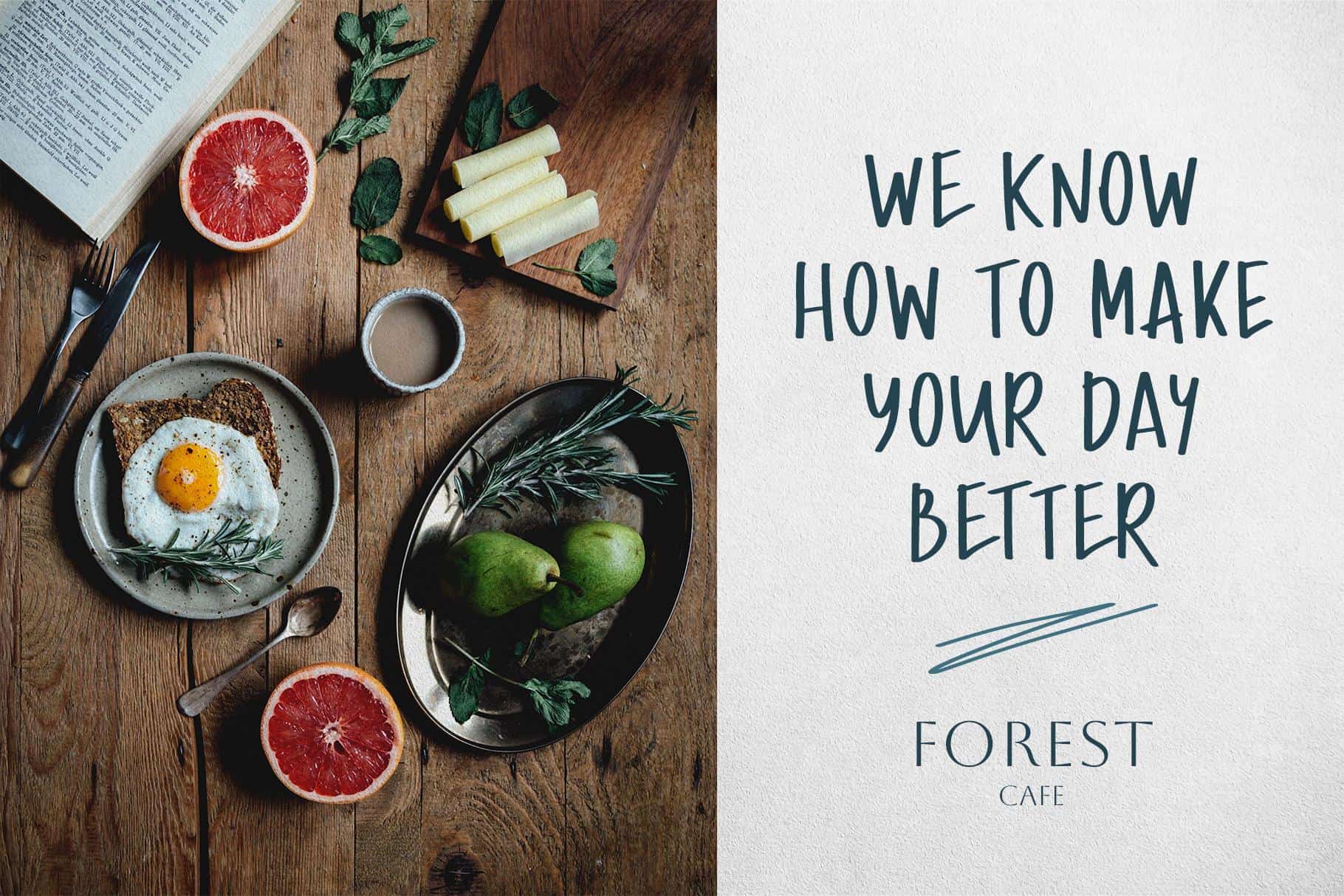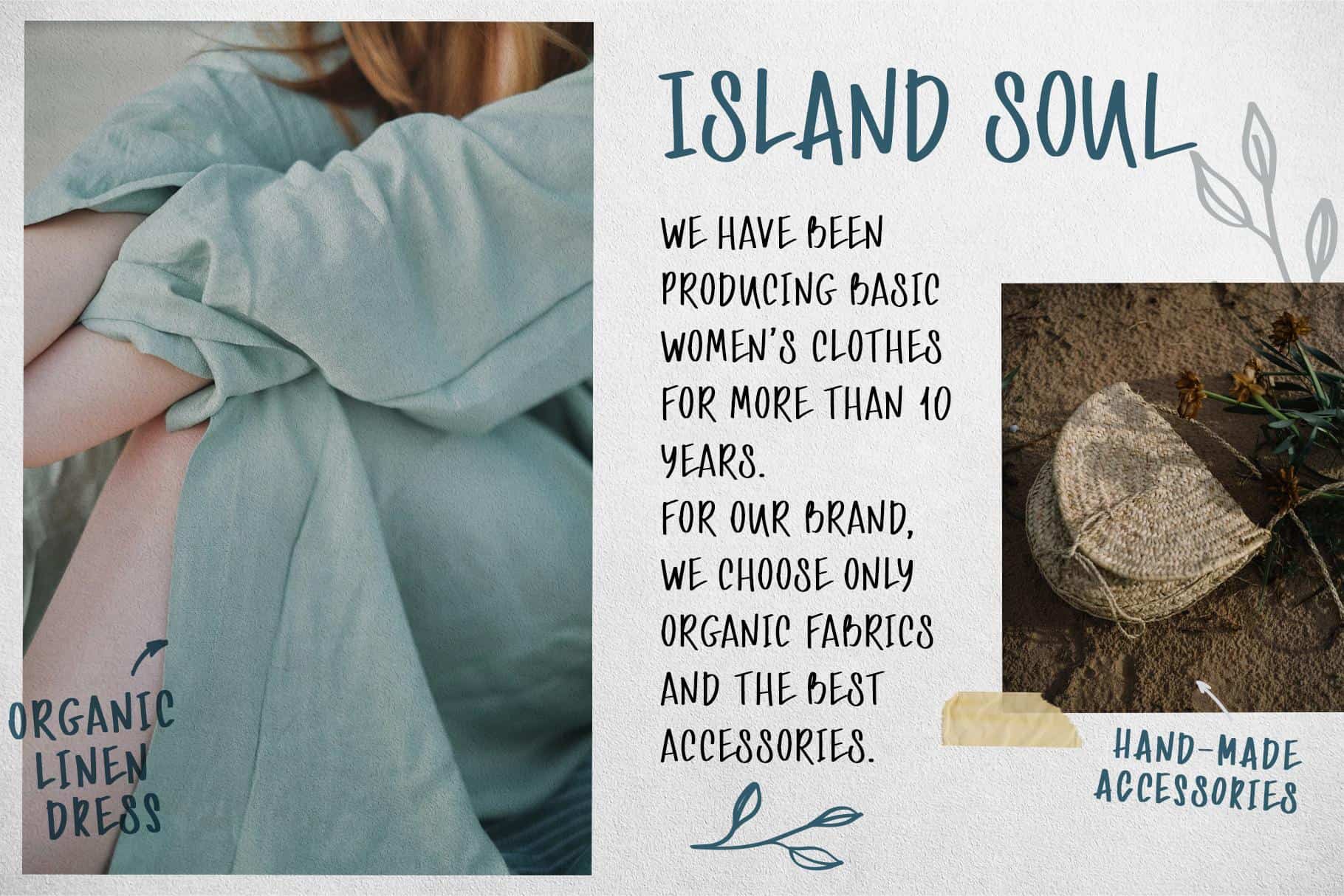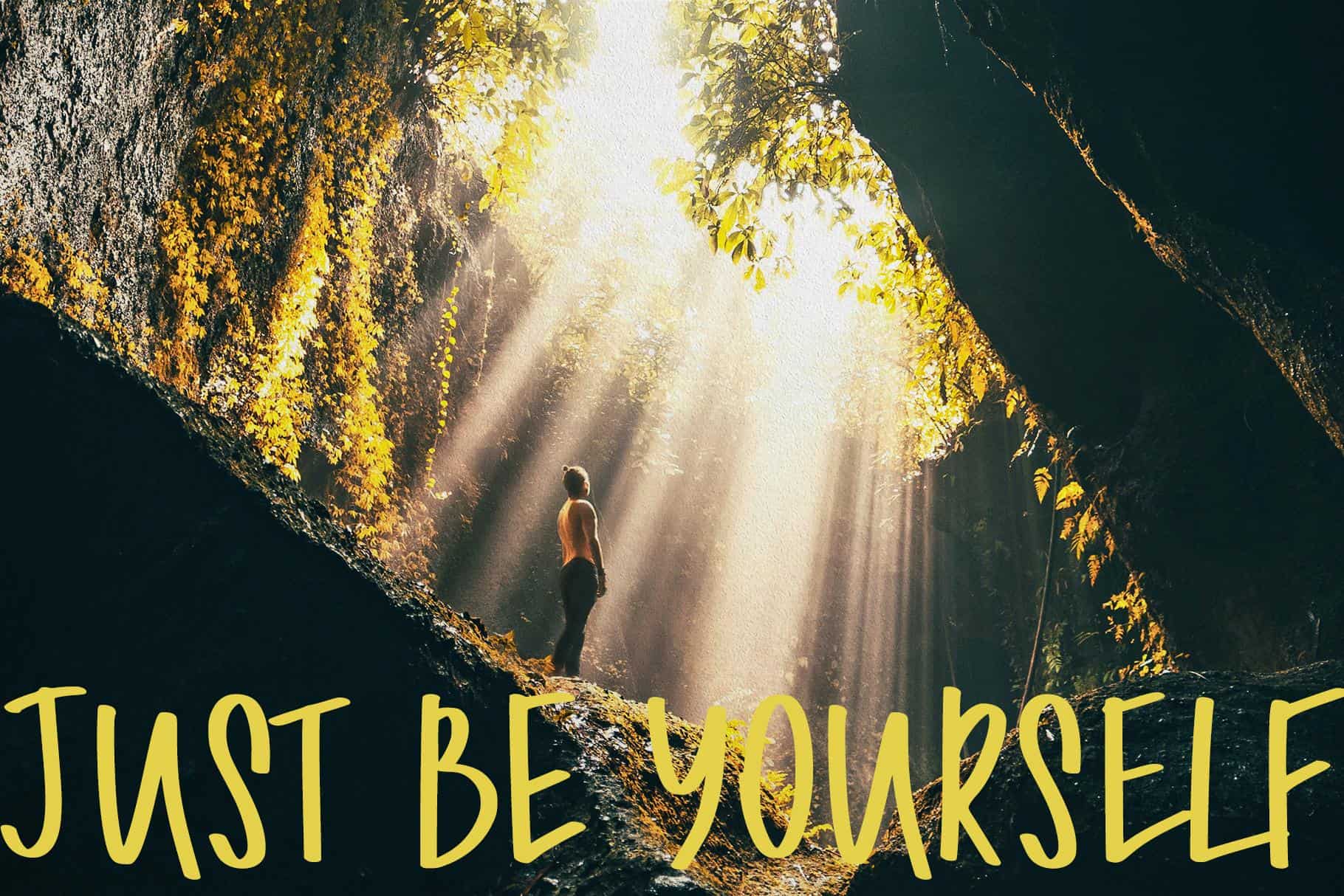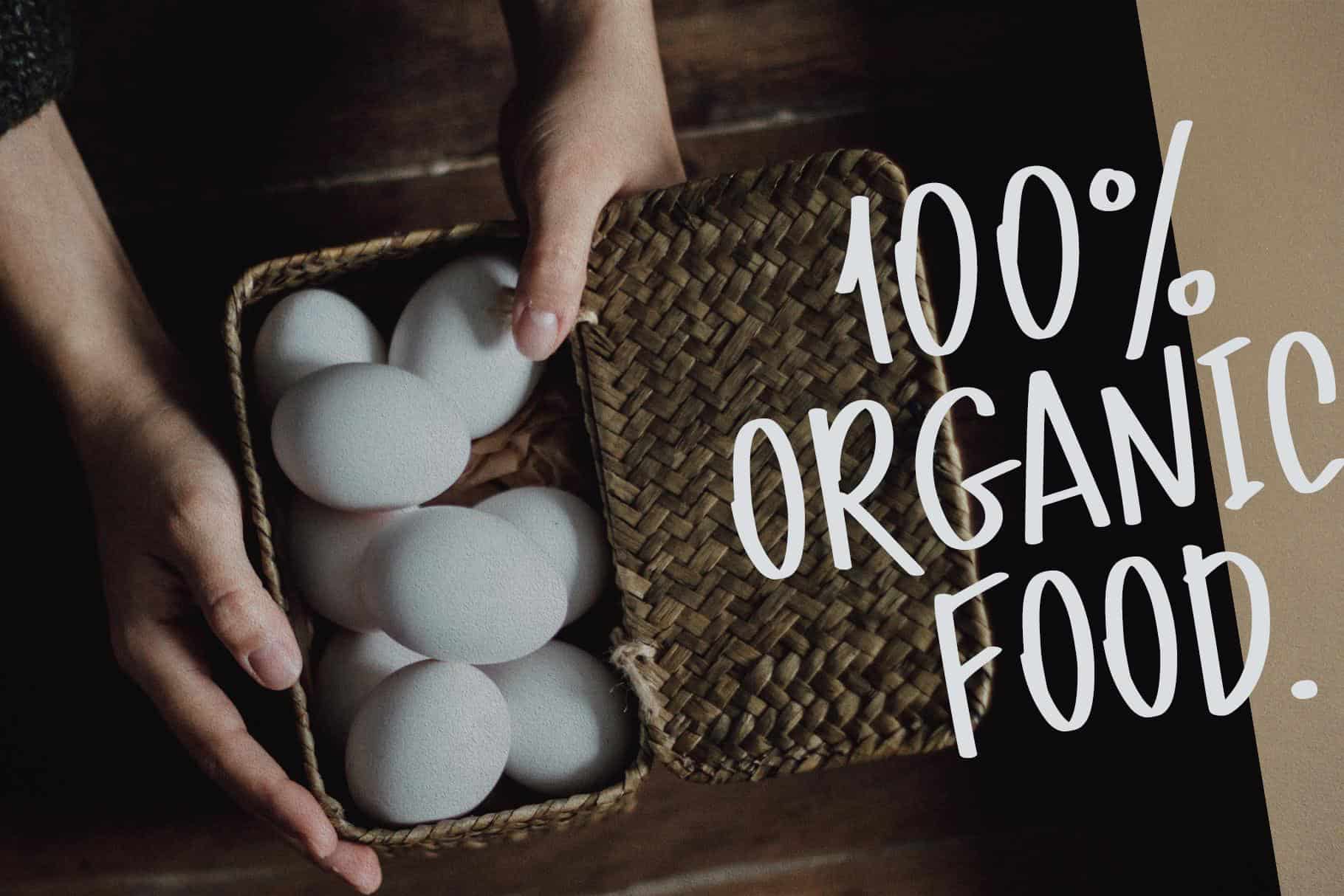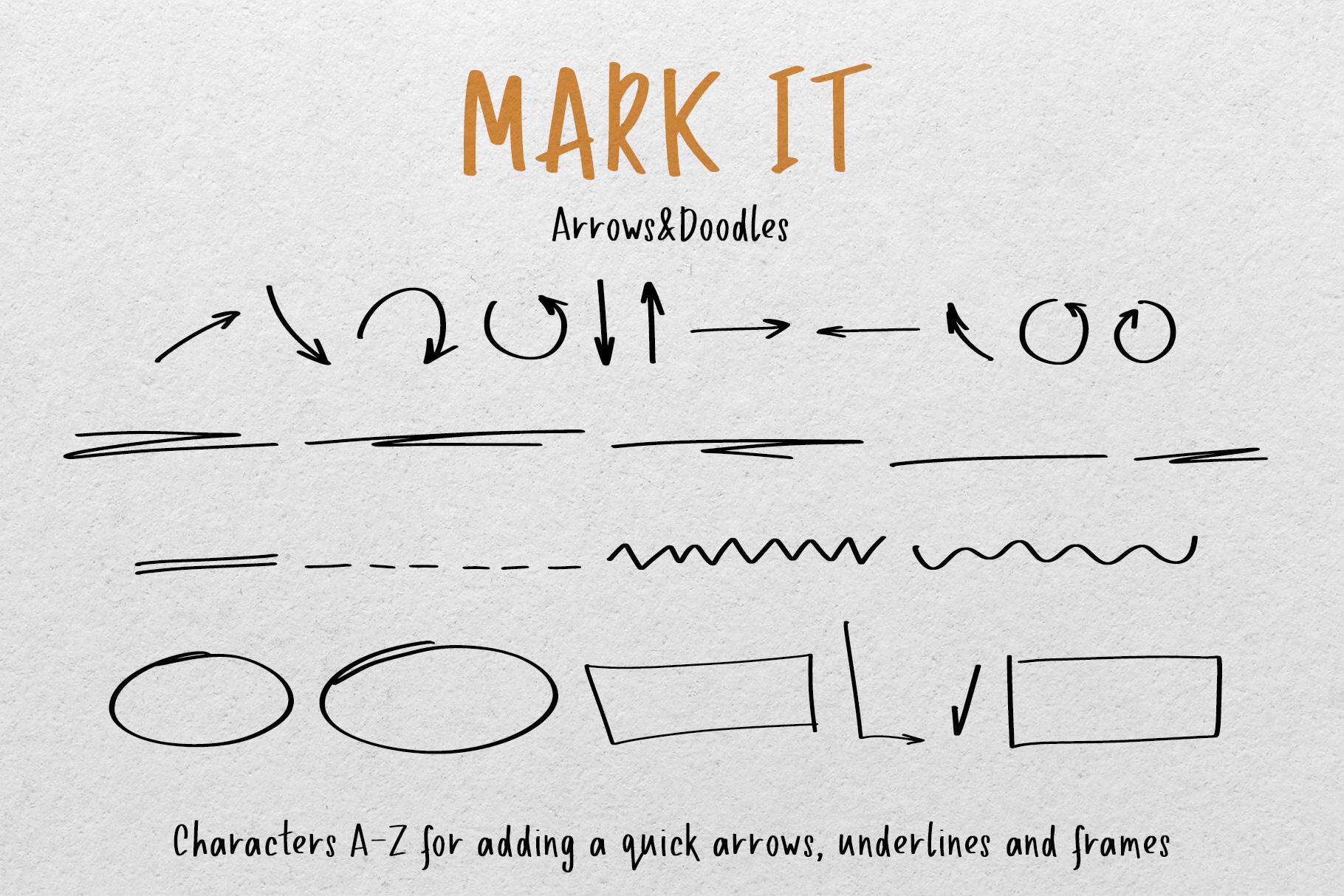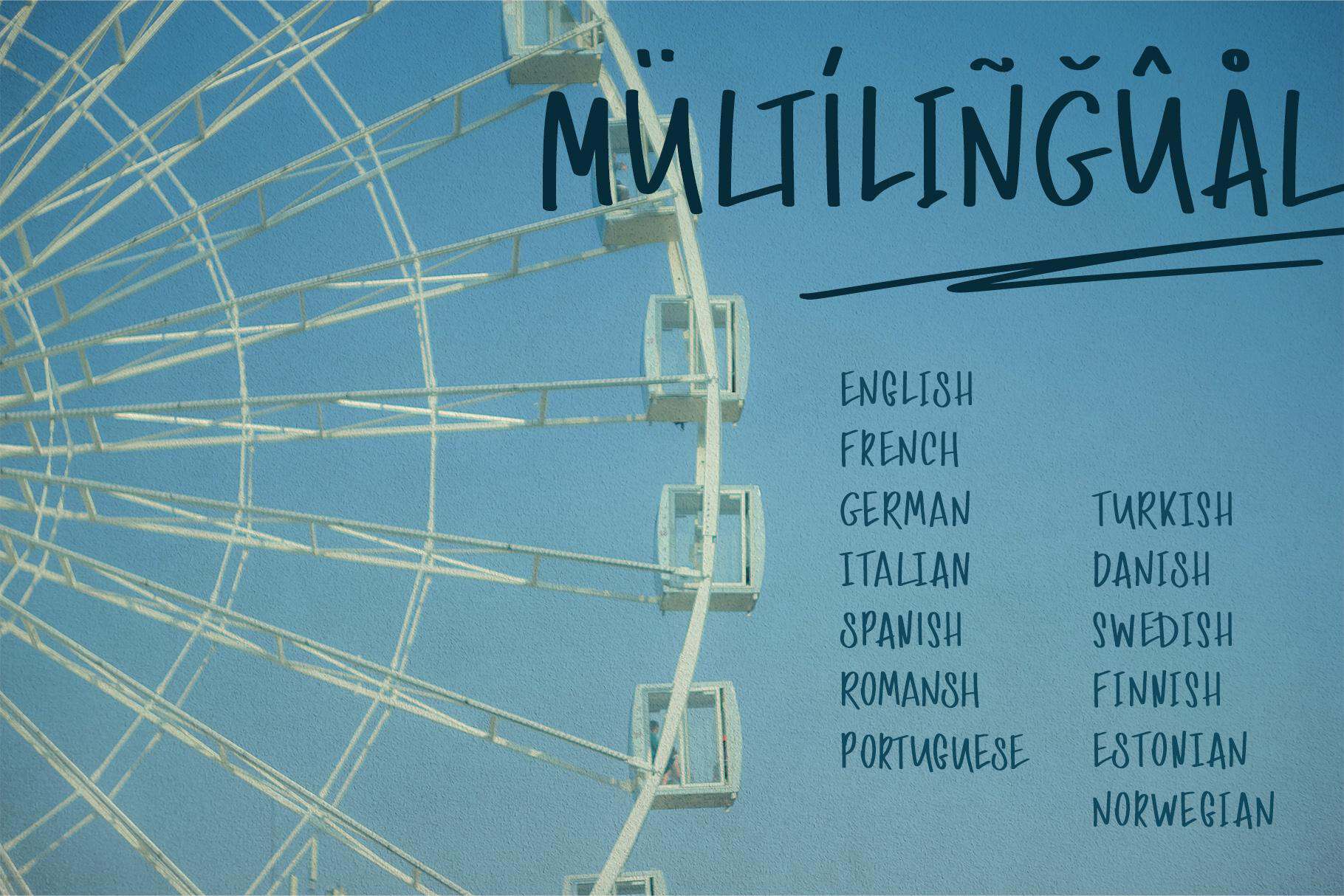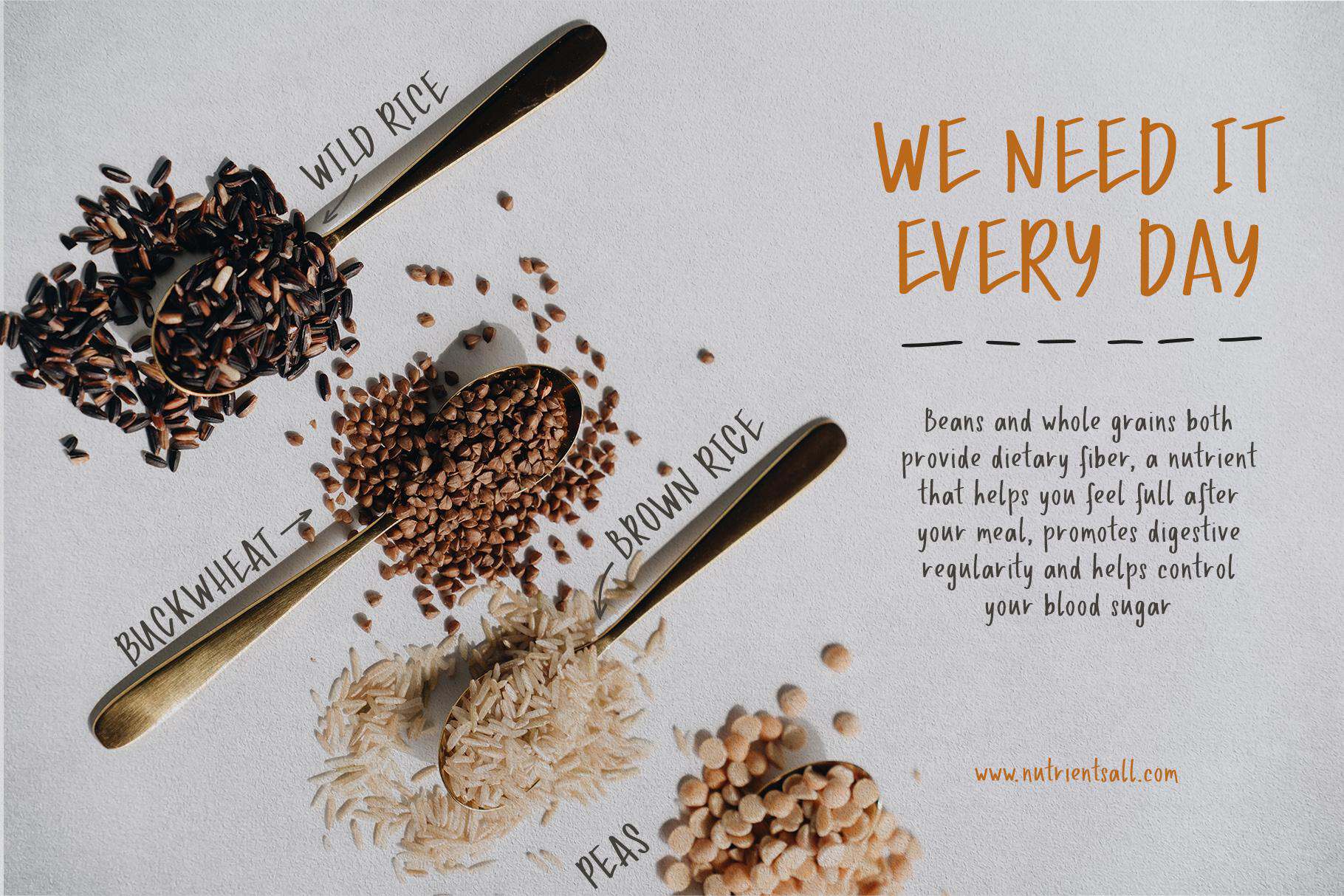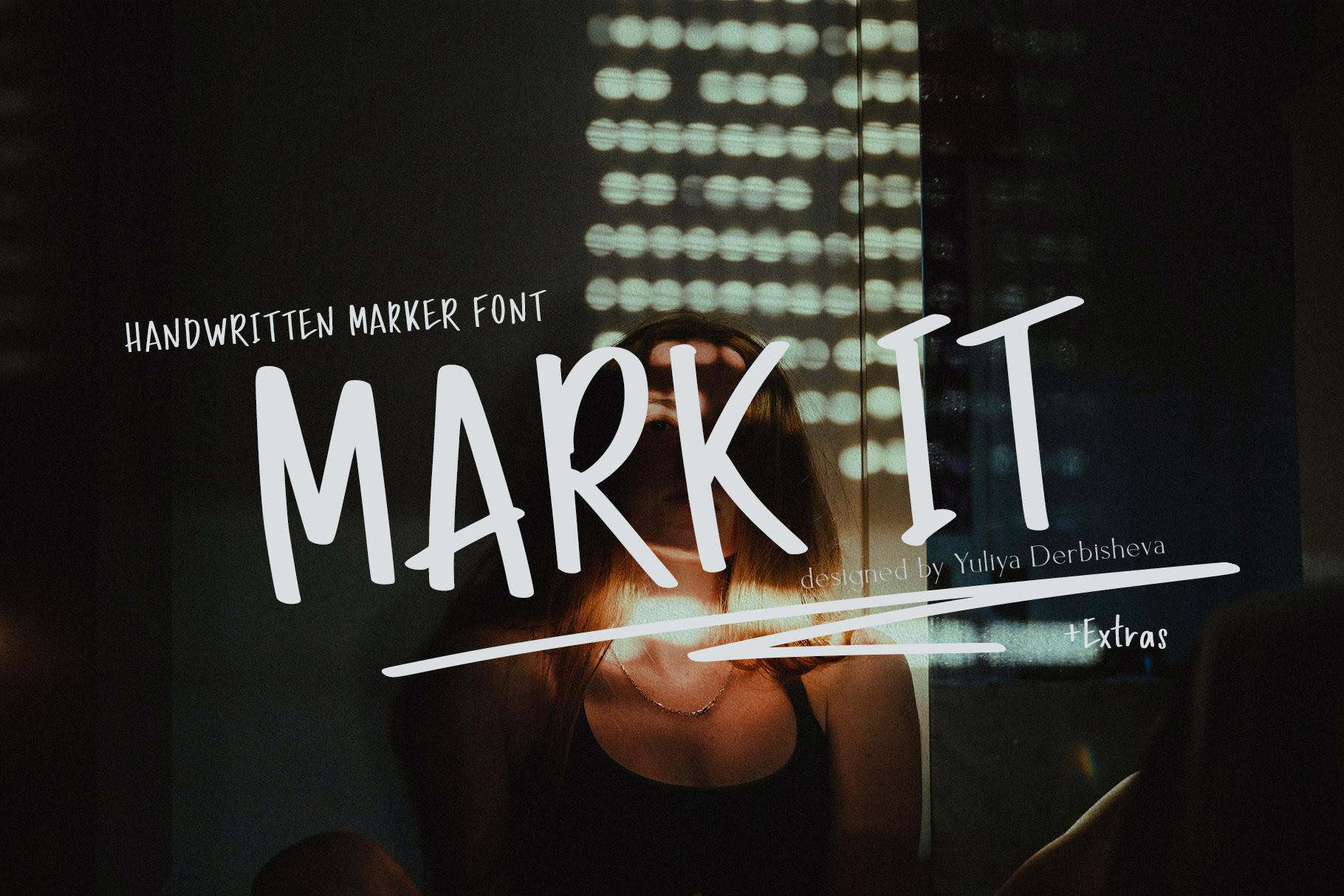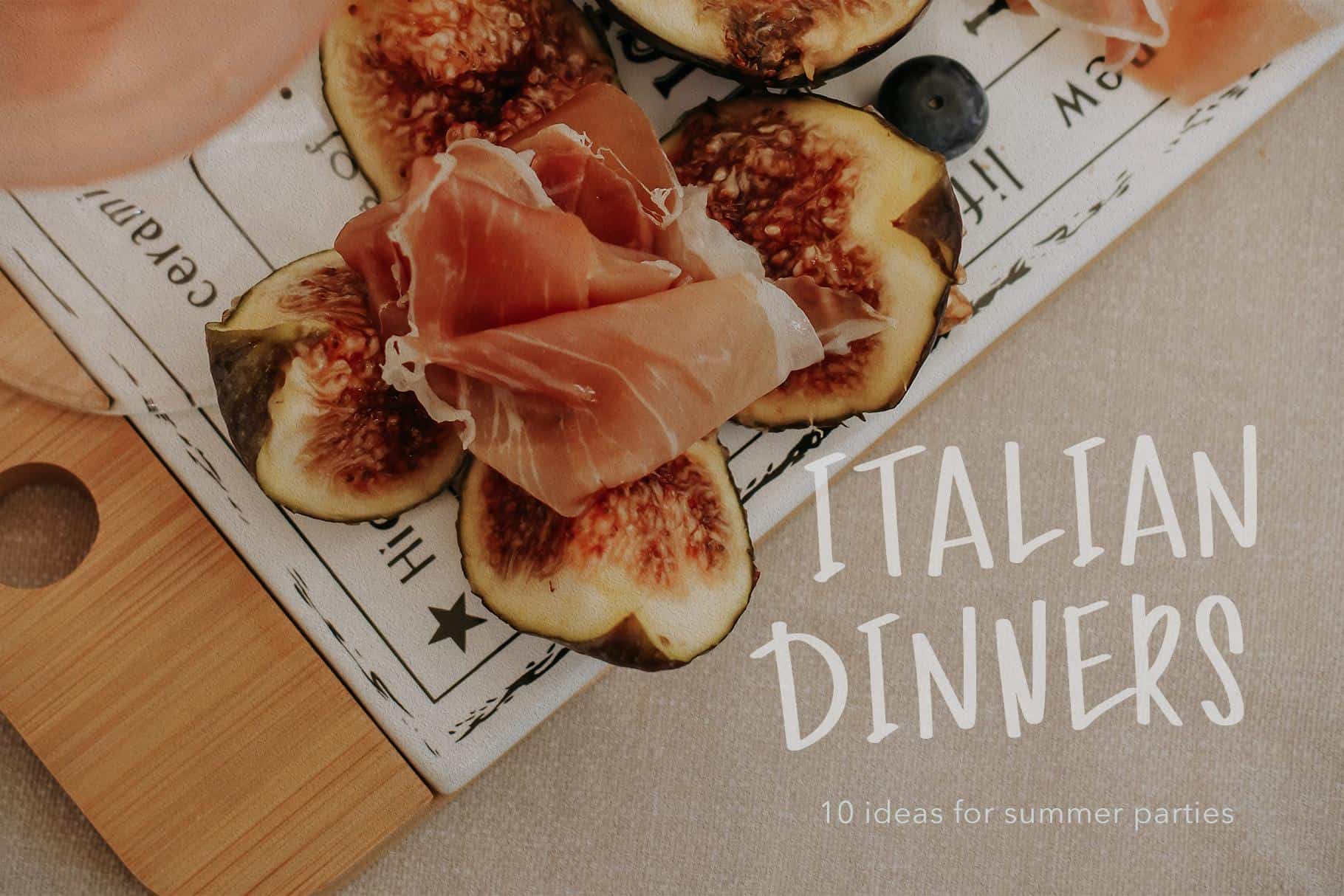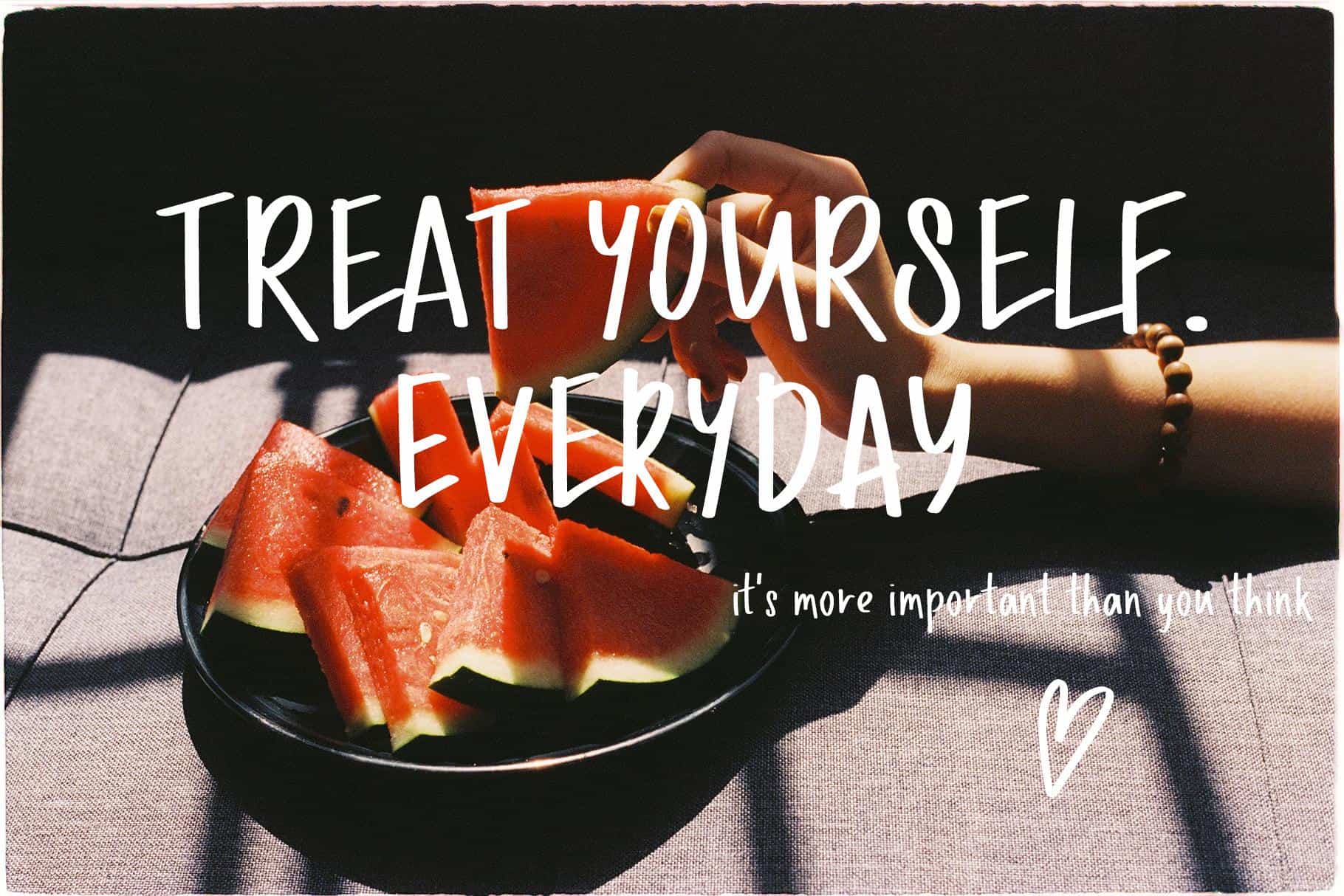
Mark It — Permanent Marker Handwritten Font with Arrows & Doodles
Mark It is a clean and straightforward handwritten font created with a real permanent marker. Its versatility makes it perfect for everything from eye-catching headlines to readable body text. With its approachable style, Mark It adds a personal, creative touch to any project.
The font includes alternate letters, arrows, and doodles, giving you the freedom to customize your designs effortlessly — underline a word, point to a detail, or add a hand-drawn flourish without leaving your design software.
Logo design, packaging, posters, branding, headlines, websites, and social media content. Mark It works equally well for a café or restaurant brand as it does for a lifestyle or clothing label — anywhere a design needs to feel handwritten, direct, and human rather than typeset.